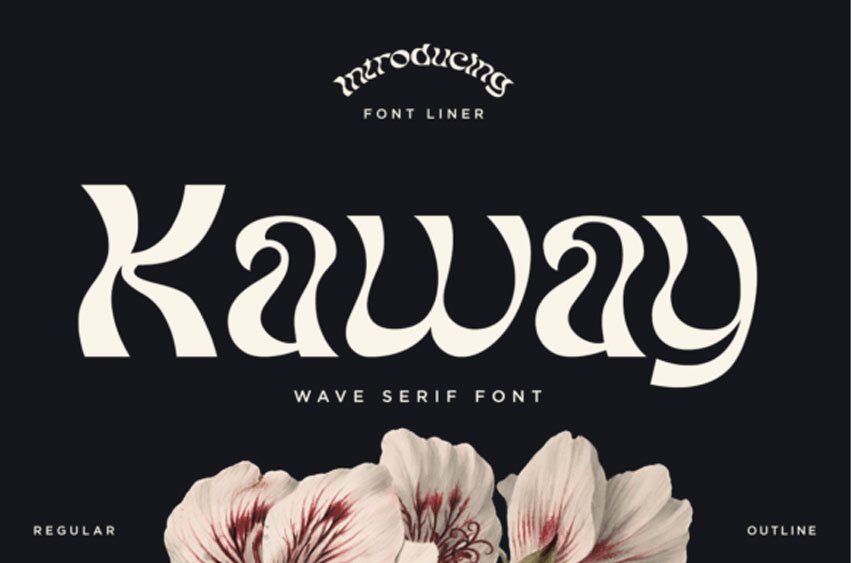
Kaway Font is a serif wave font that blends sophistication with artistic flair, and the wave of the sea, making it a unique serif font for those who appreciate finer details.
Ideal for high-end branding, editorial design, and special occasions like psychedelic design. Perfect for editorial headlines, branding, and artistic projects, it brings movement and personality to any design.